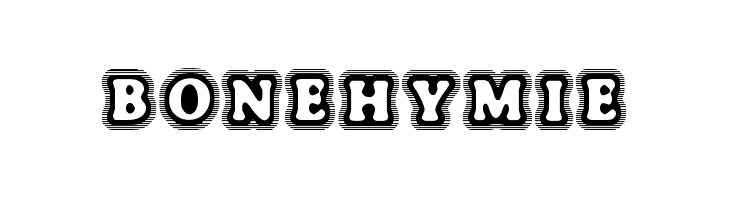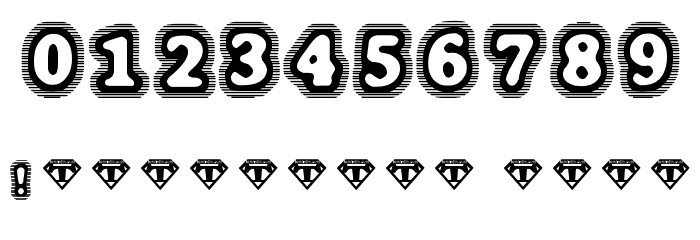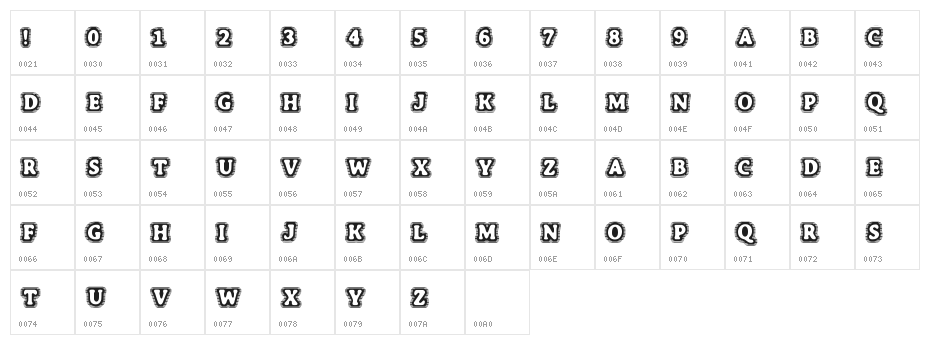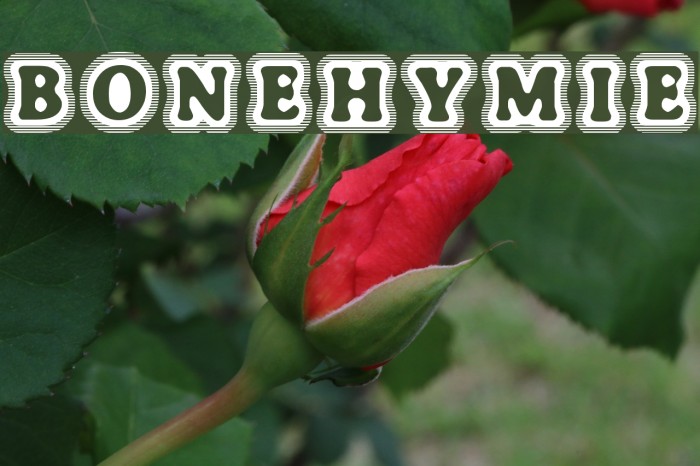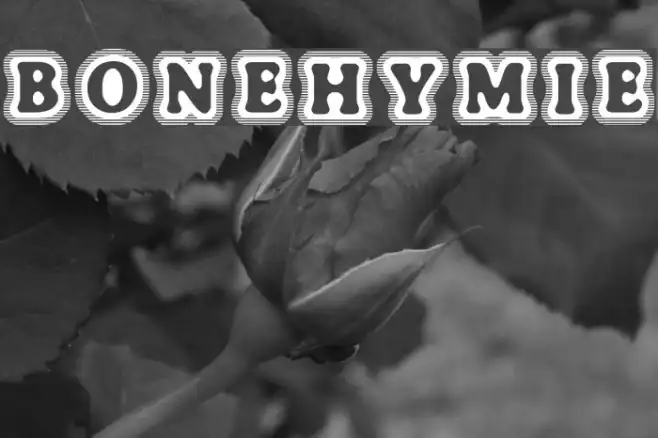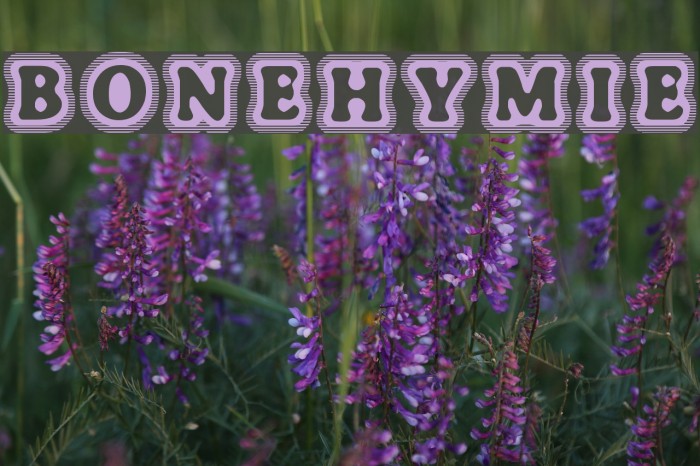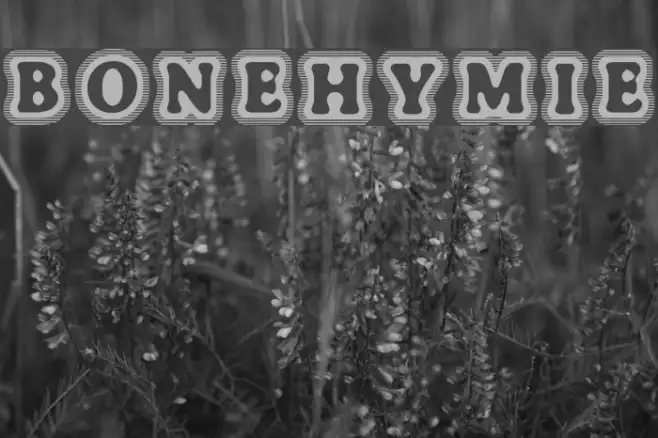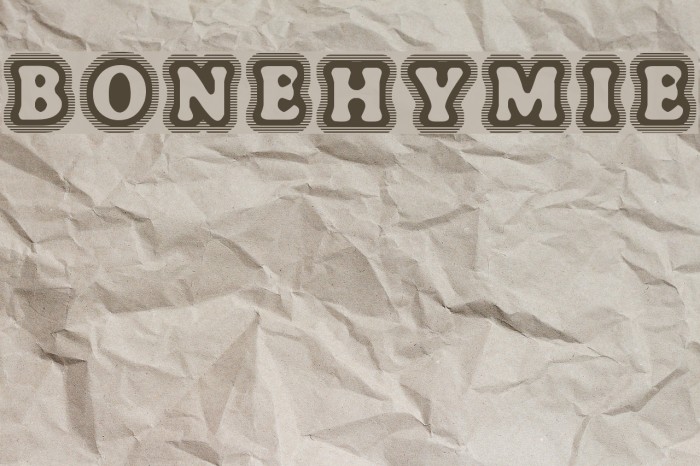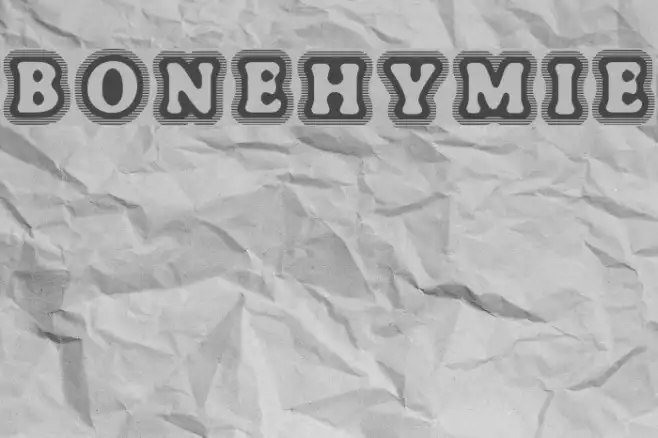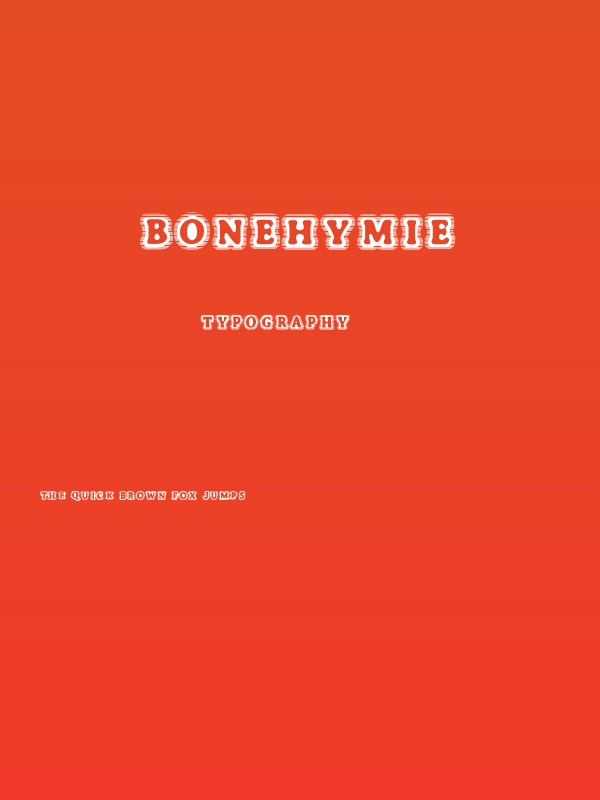
BoneHymie Font
BoneHymie Description
This font features a bold, decorative style with a unique striped pattern that gives each character a layered, three-dimensional appearance. The letters are uppercase and have a playful, cartoonish quality, making them stand out with a strong visual impact. The numbers and special characters follow the same design, ensuring consistency across all elements. The font's thick strokes and outlined edges enhance its boldness, making it ideal for eye-catching designs.
| Proposed Projects | Ideal for posters, logos, and any design requiring a bold, playful aesthetic. |